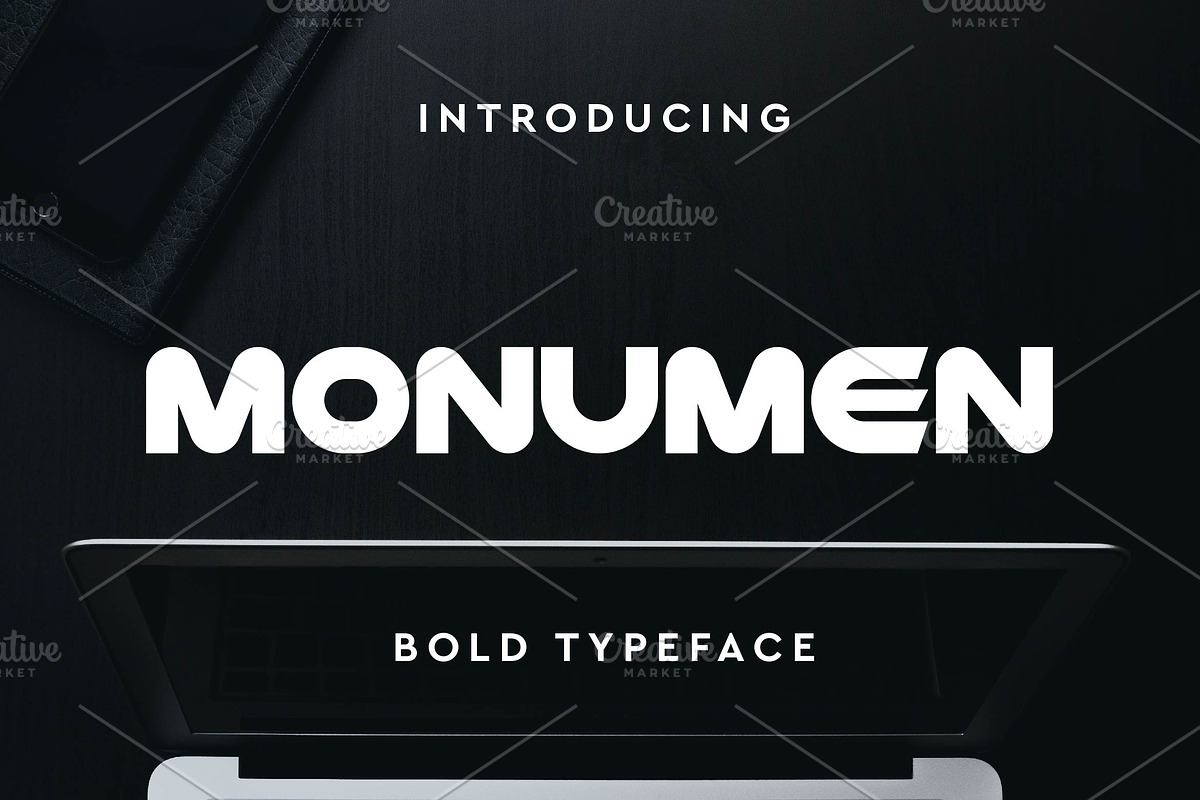
Monumen Bold Font Free Download
Monumen Bold Font Free Download is a striking and powerful display typeface crafted to make a strong visual statement. With its tall letterforms, thick strokes, and clean geometry, Monumen Bold is perfect for headlines, posters, branding, sports graphics, packaging, and any design that demands boldness and clarity.
Designed to dominate layouts with confidence, Monumen Bold Font Free Download blends modern aesthetics with timeless strength. Its bold architecture gives your typography presence and impact, making it ideal for high-visibility design in both print and digital formats.